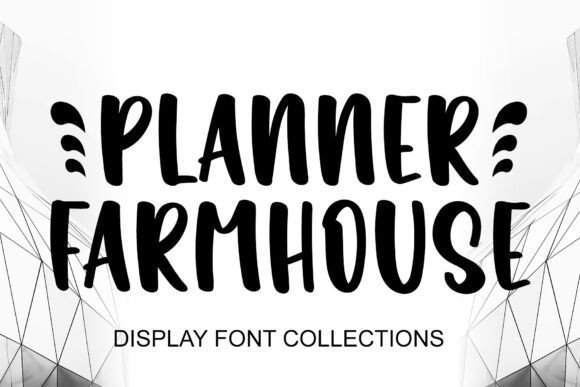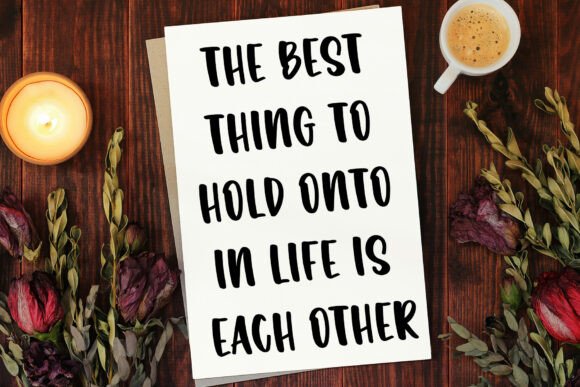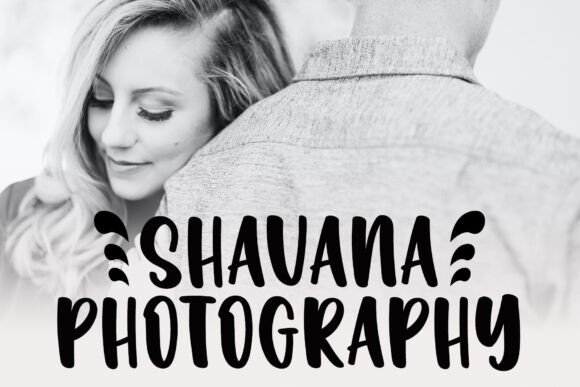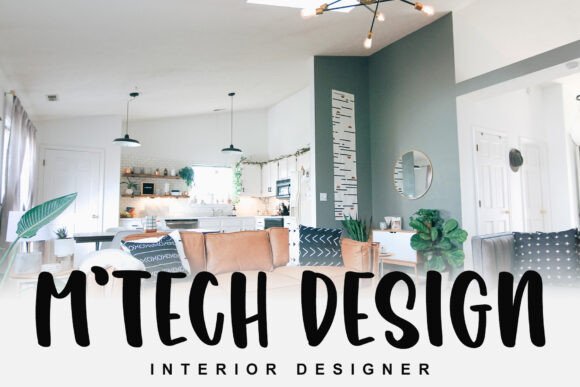
Planner Farmhouse Font
About the Planner Farmhouse Font
Step up your design game with Planner Farmhouse Font, a font that exudes confidence and style. Planner Farmhouse is a stylish and modern handwritten, suitable for a wide spectrum of applications. From greeting cards to headlines, branding and packaging, this font will guarantee a happiness touch to each of your creations!
Planner Farmhouse’s casual, yet refined script is ideal for headlines, short text blocks on packaging, and branding elements requiring a touch of rustic charm. It works particularly well in projects related to food, home décor, or crafting, lending a handcrafted feel. However, its handwritten nature makes it less suitable for body text or UI elements where readability at smaller sizes is paramount. Extended use could strain readability.
Its friendly, approachable personality pairs well with clean sans-serif fonts like Open Sans or Lato for a balanced contrast. For a more rustic feel, consider pairing it with a complementary serif like Playfair Display or Merriweather. Avoid pairing it with overly geometric or overly ornate fonts which might clash with its organic feel.
The overall aesthetic evokes a sense of warmth and approachability, making it perfect for brands aiming for a friendly and inviting image.